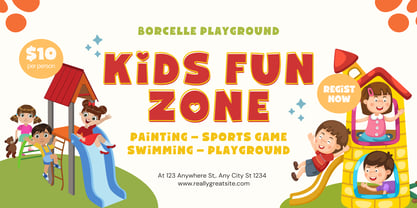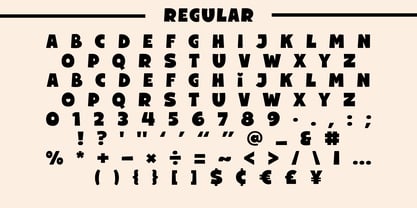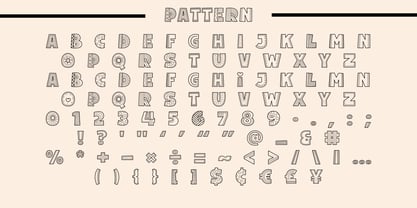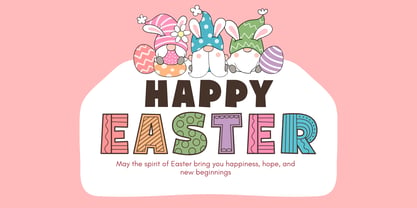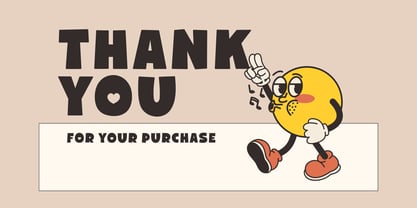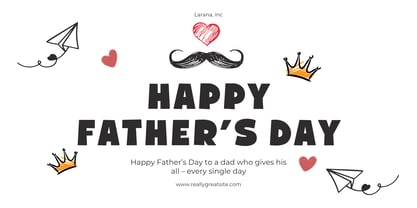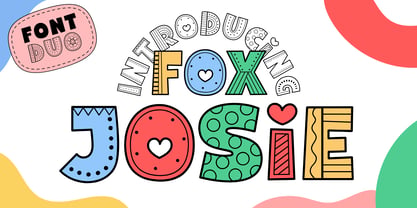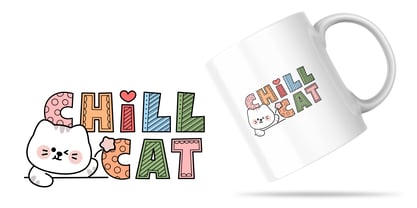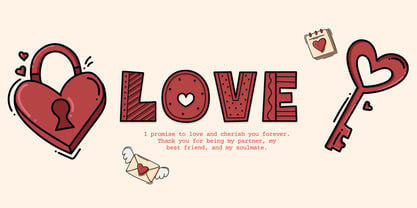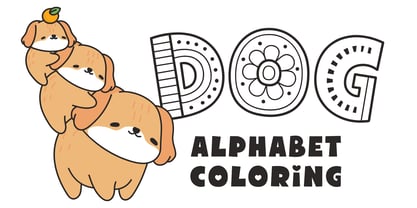
Fox Josie
by Fox7
The Fox Josie Font Family was designed by Rattana Rattanawan and published by Fox7. Fox Josie contains 2 styles and family package options. More about this family
Fox Josie is a fun and adorable doodle display font designed to bring creativity and joy to your projects. Each letter features playful decorative patterns that look like hand-drawn doodles, making the font perfect for coloring activities and cheerful designs. This unique style allows the letters to be used both as decorative typography and as alphabet coloring elements, making it especially great for kids’ activities, learning materials, and craft projects. Fox Josie is designed with bold shapes and charming details that make every letter feel lively and engaging. The playful look makes it ideal for seasonal designs, cute merchandise, and creative digital or printable projects. This font works wonderfully for Easter designs, kids coloring pages, educational worksheets, greeting cards, stickers, and playful branding. Let your imagination run free and turn simple words into fun, colorful artwork with Fox Josie! 🌟 Perfect for • Alphabet coloring pages • Kids learning materials • Classroom worksheets • Easter designs • Coloring books • Printable crafts • Stickers and Cricut projects • Greeting cards • Kids posters • Cute merchandise designs
Designers: Rattana Rattanawan
Foundry: Fox7